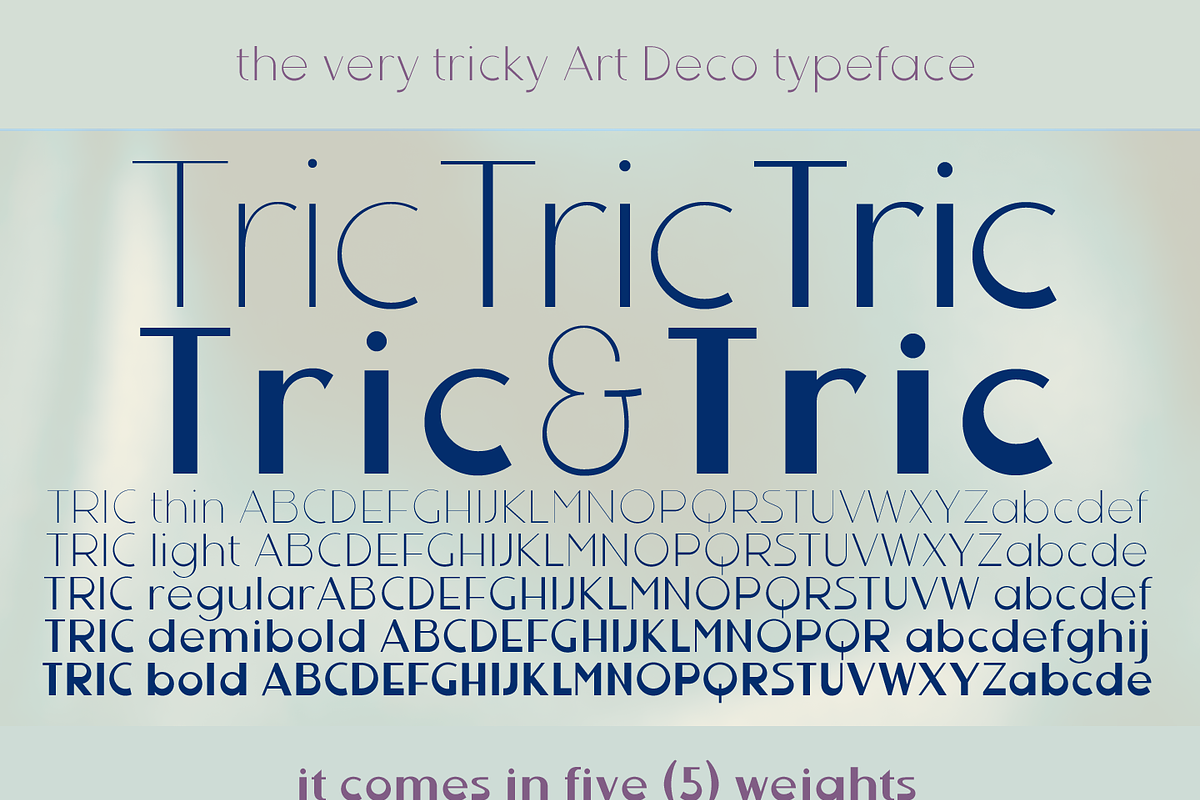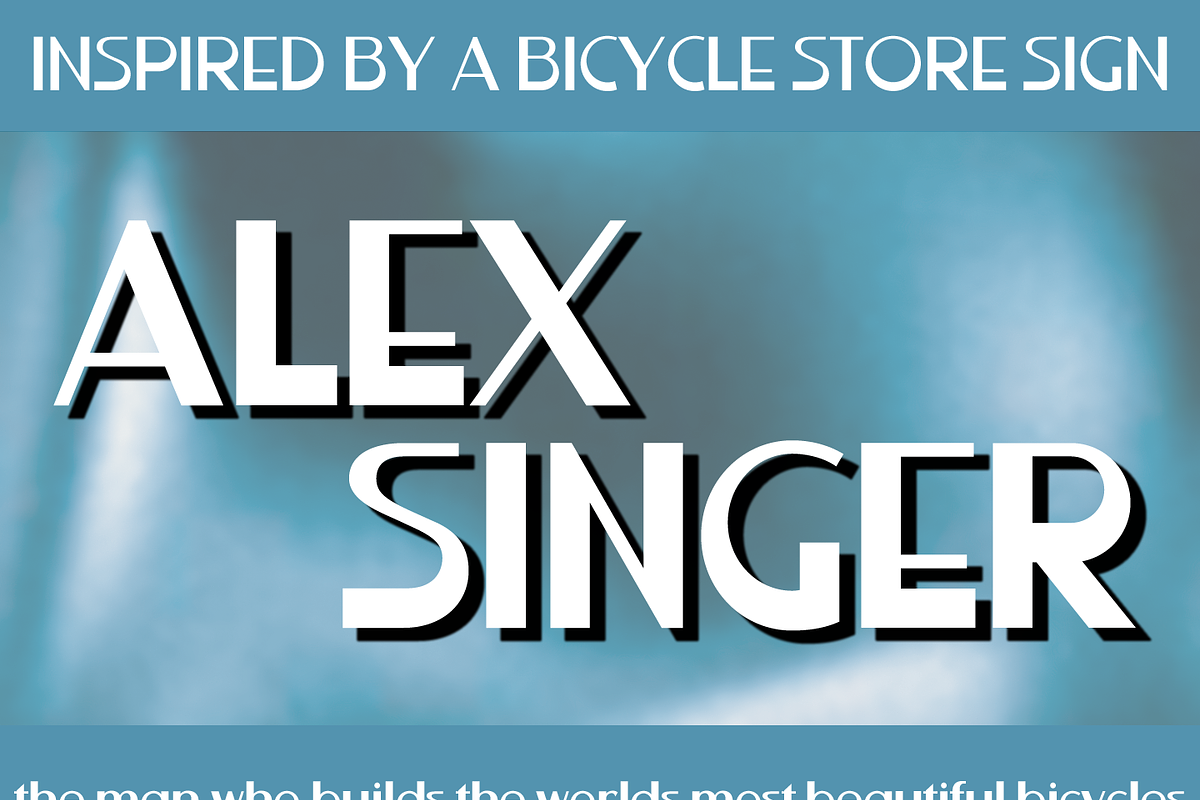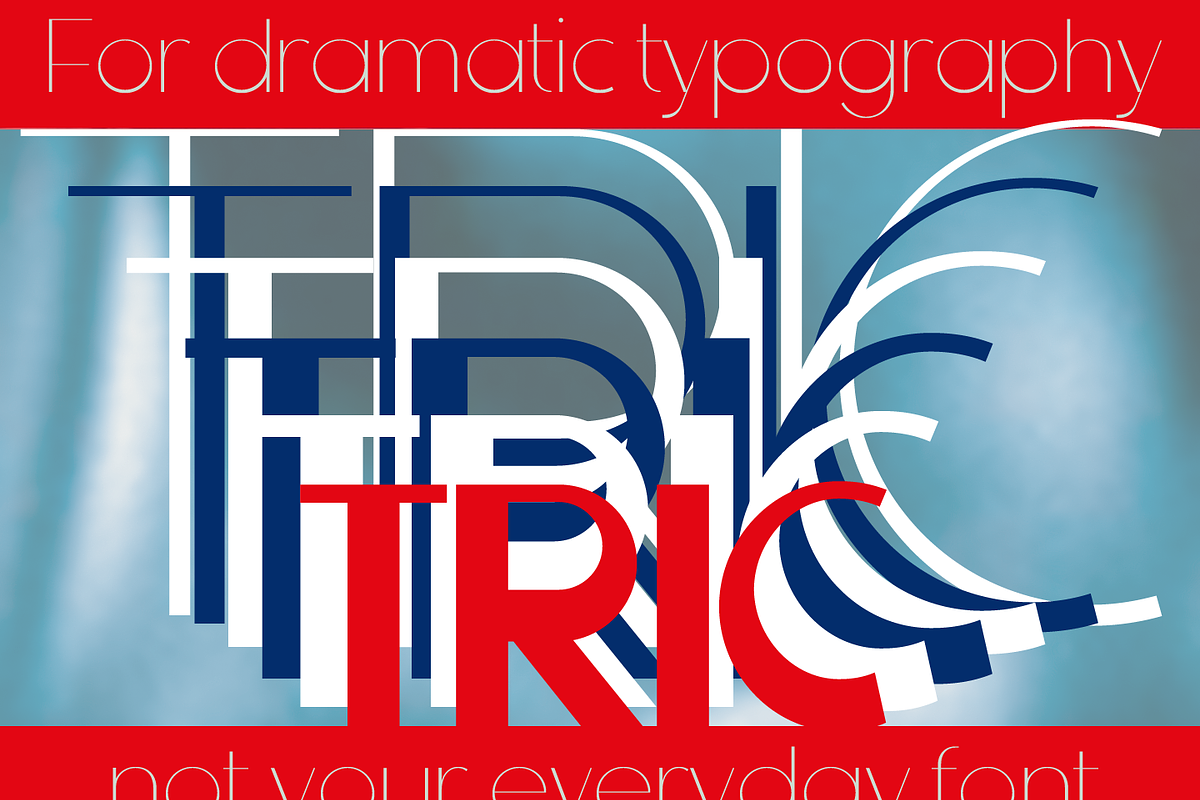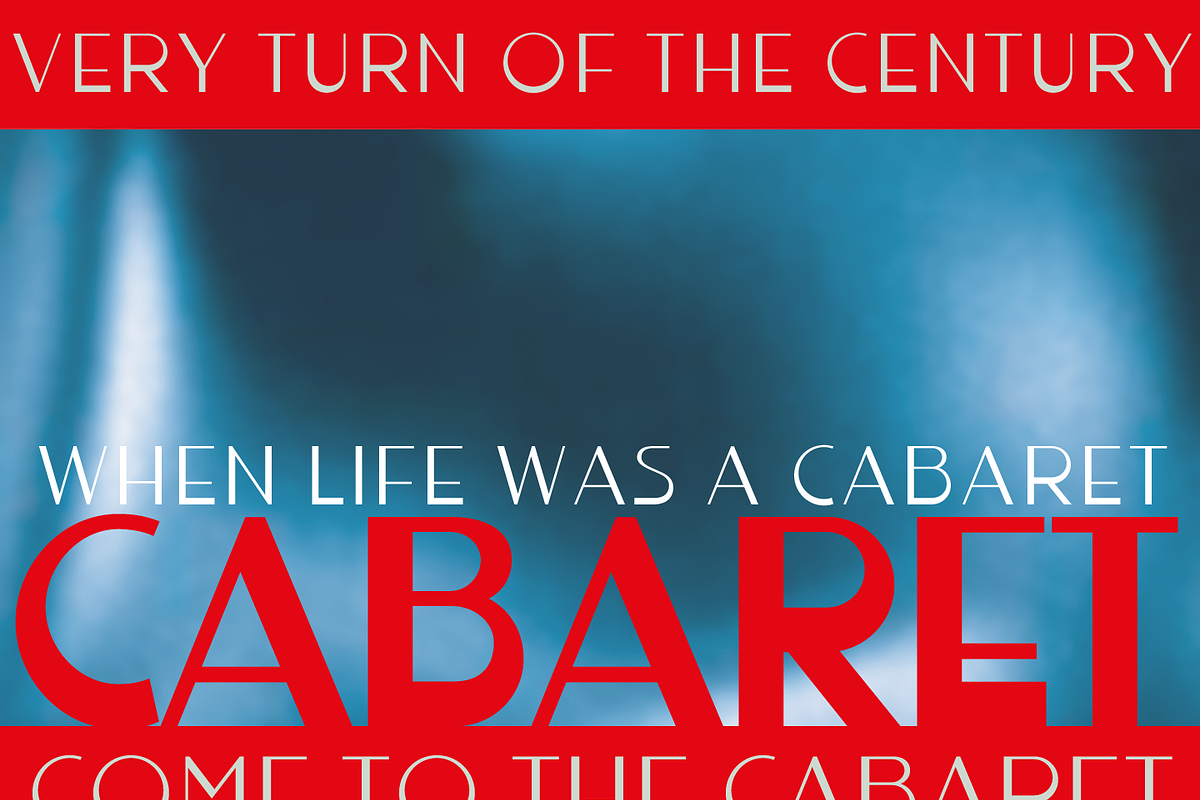
Tric font
Tric font by Wiescher Design is a font selected for branding, posters, packaging, typography.
- Tric Thin
- Tric Light
- Tric Regular
- Tric DemiBold
- Tric Bold
Tric font by Wiescher Design fits naturally into Branding, posters, packaging, typography.